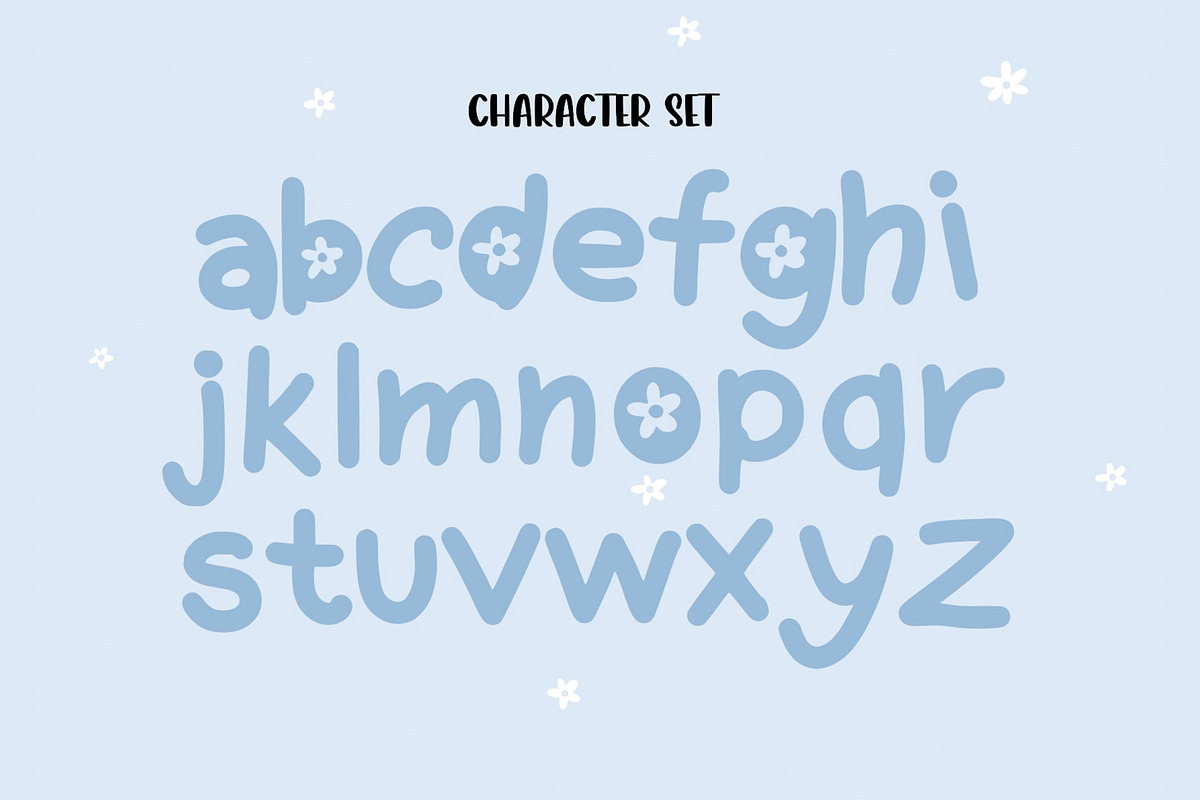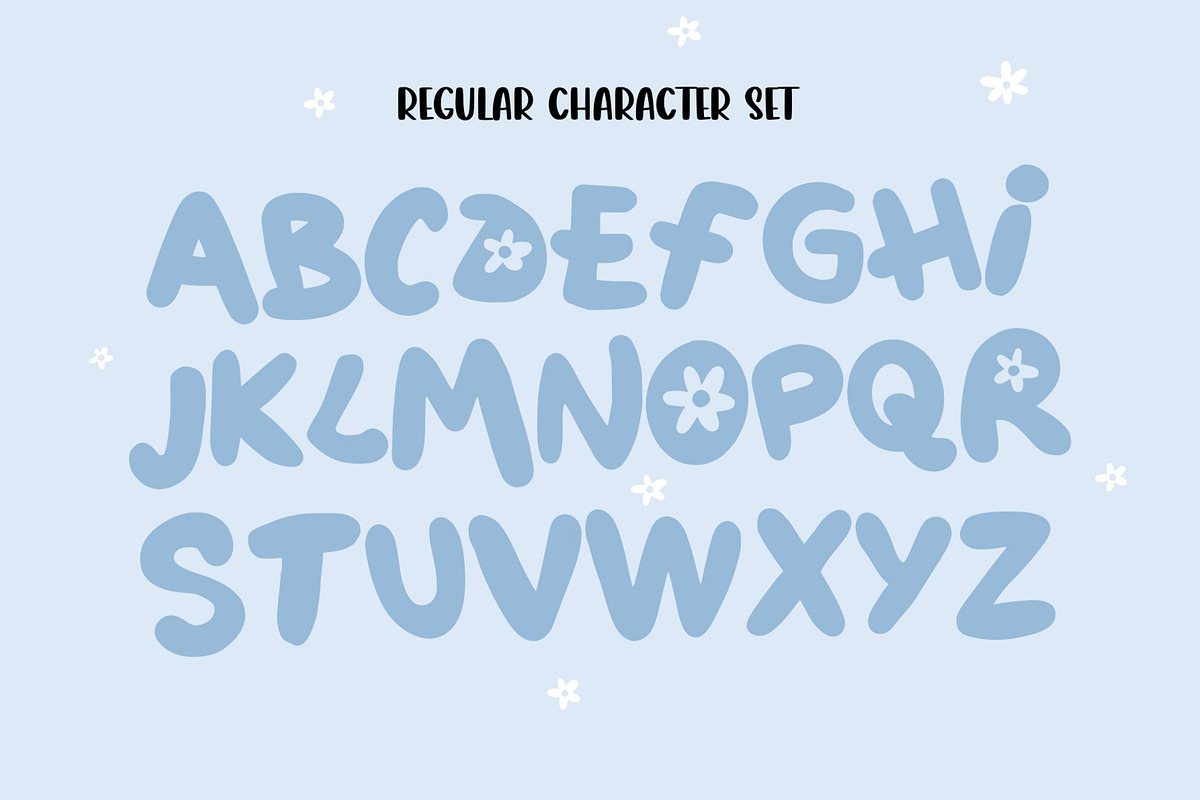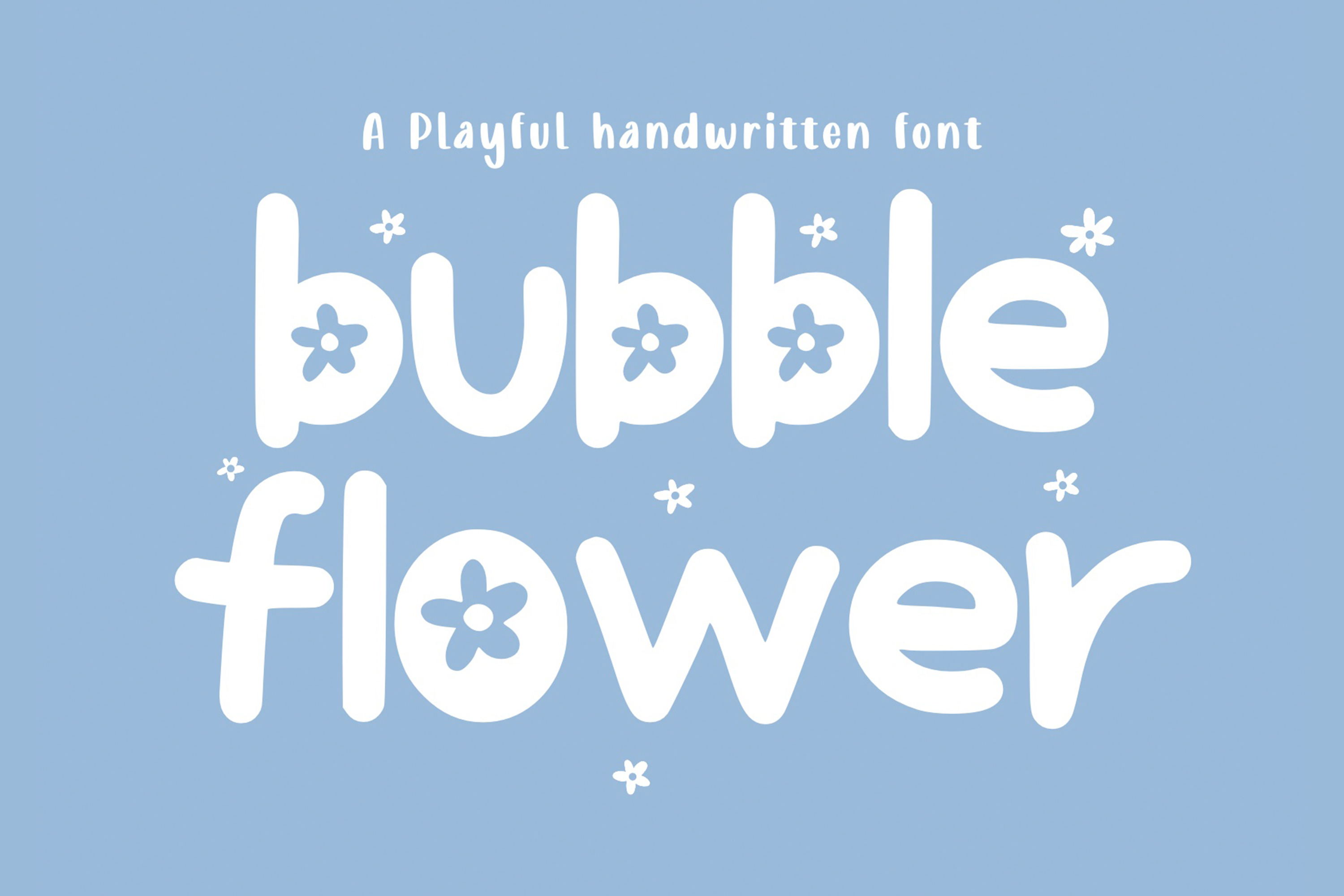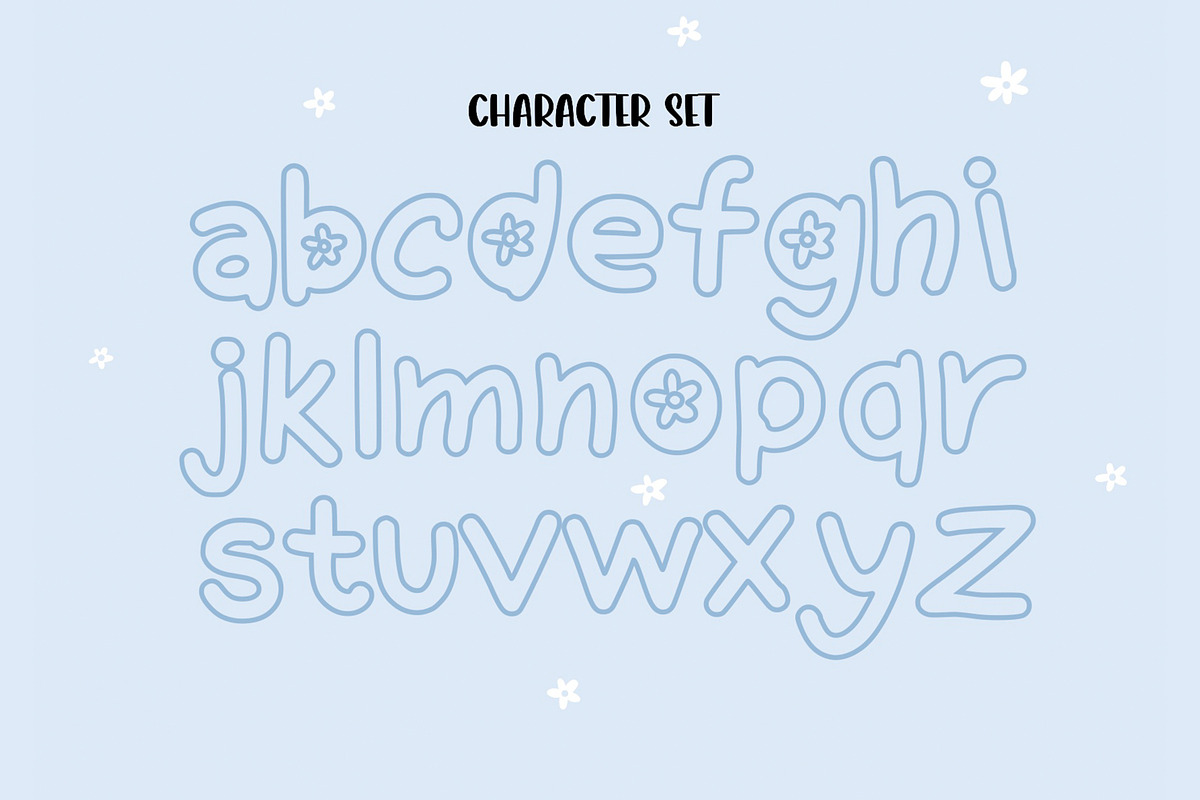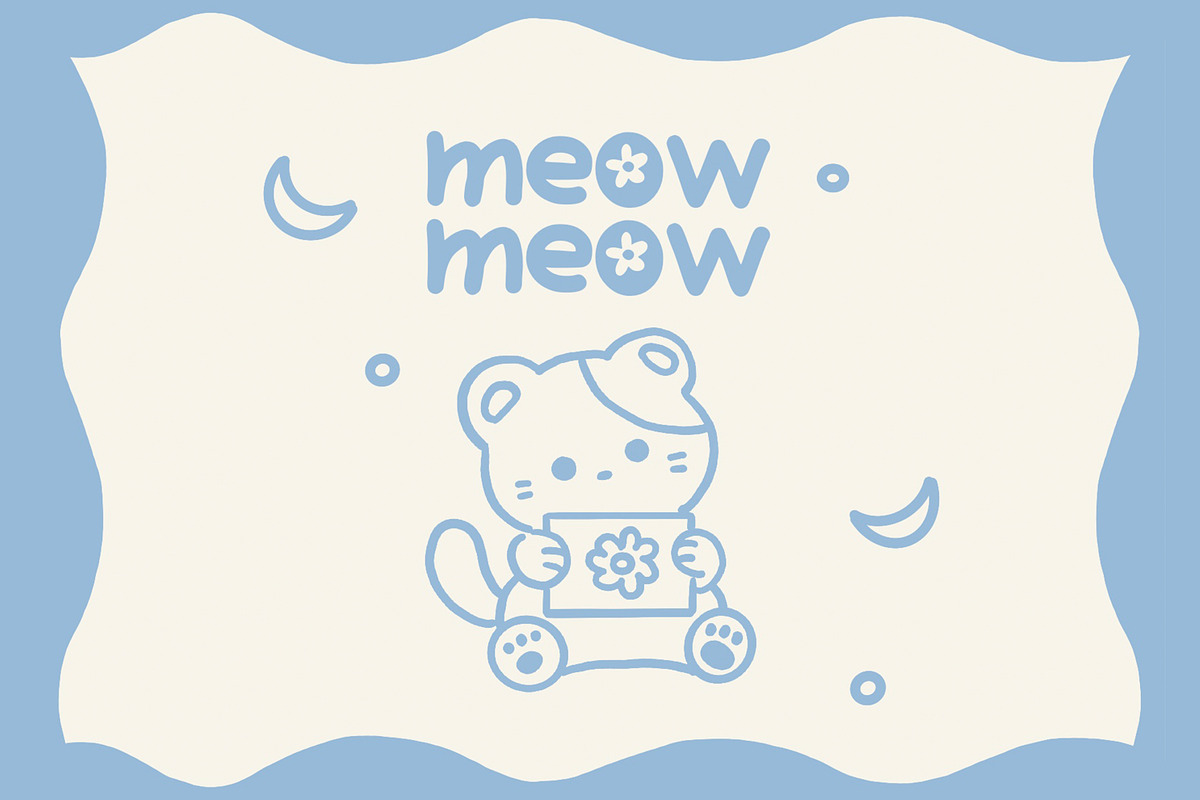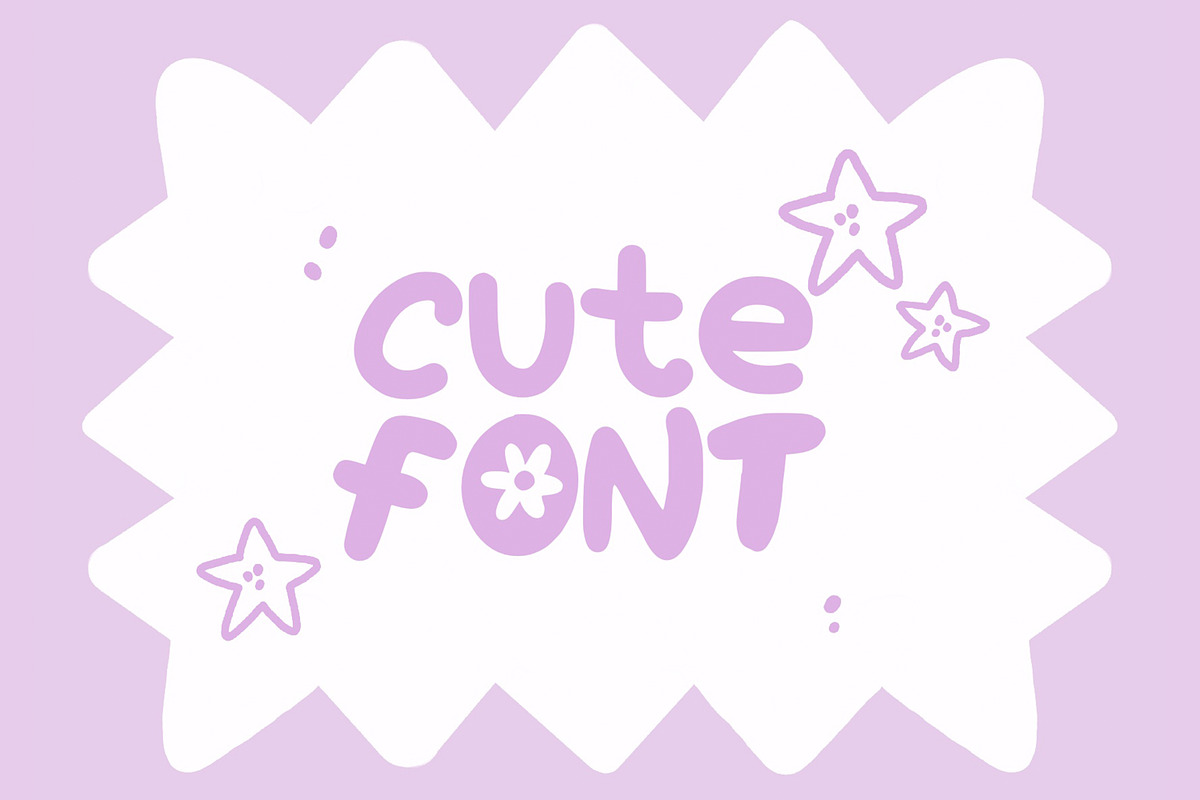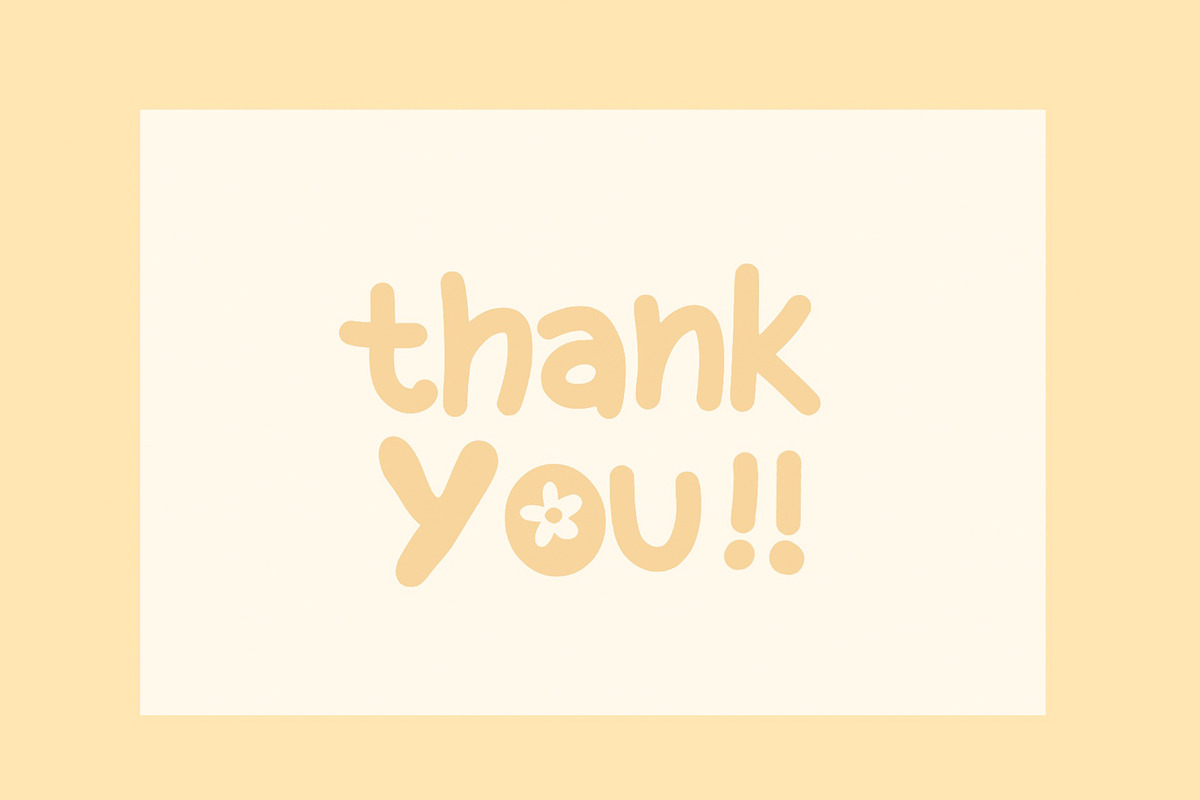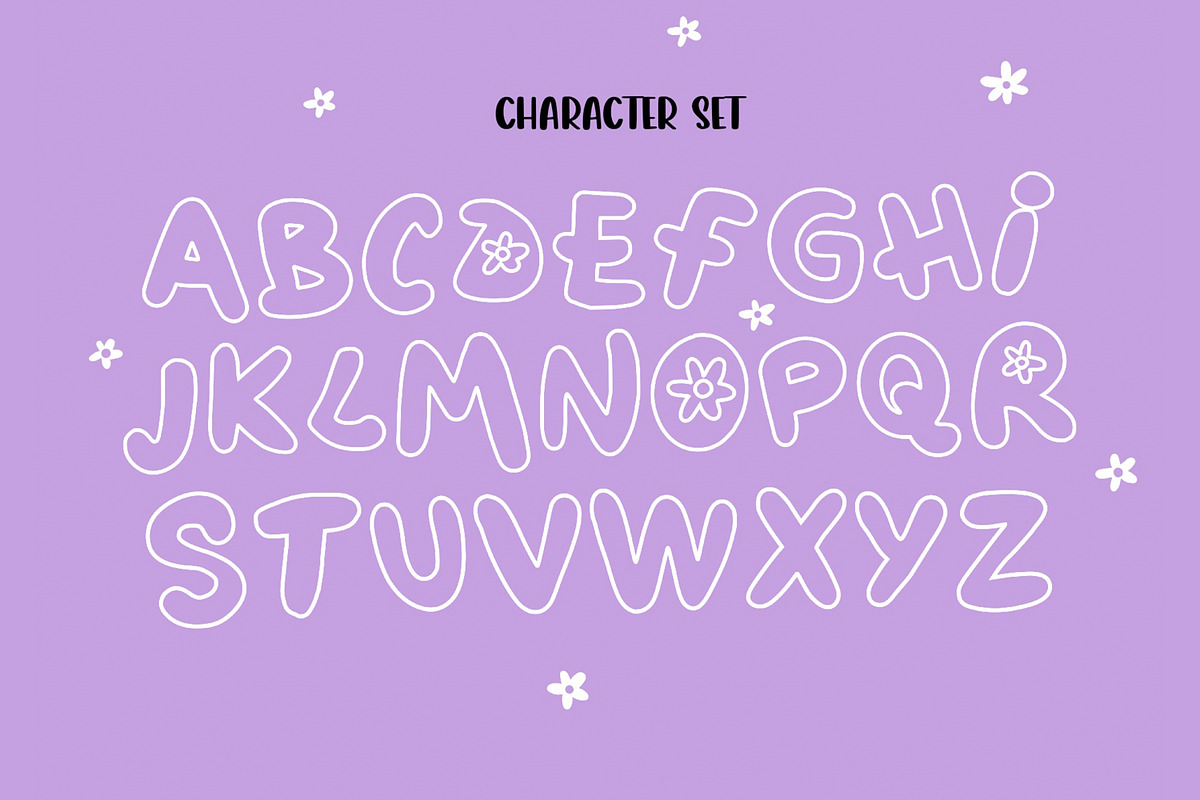
Bubble Flower- Handwritten font
Bubble flower is a simple typeface perfect for any fun quirky design work! Put this font on anything your heart desires tees, mugs, cards, cases… the fun never stops! Get creative!